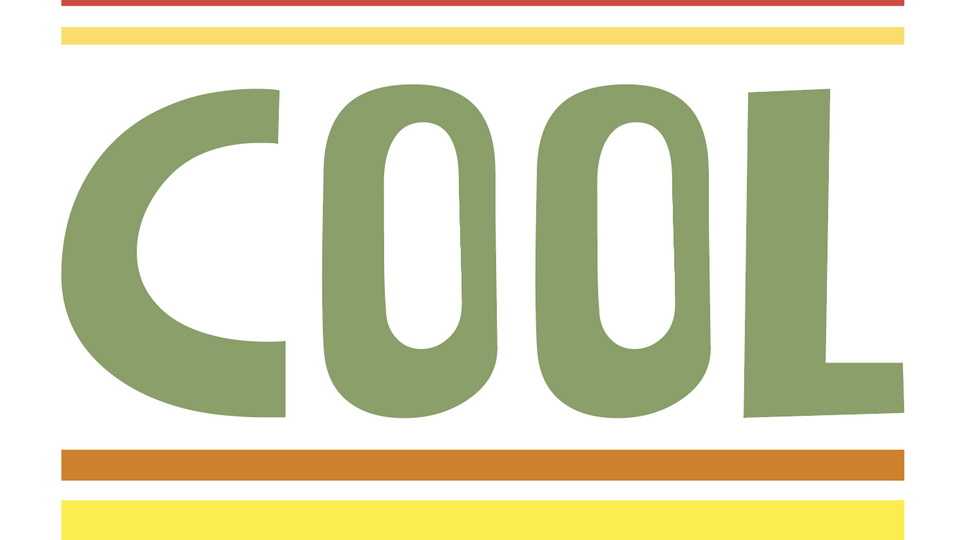
Download Cool font, a fun, playful, and whimsical typeface designed to bring a spark of imagination to any project. Cool is another corporate typeface, everyone should use this font for many YouTube videos and thumbnails.
Designer: Liam Butler